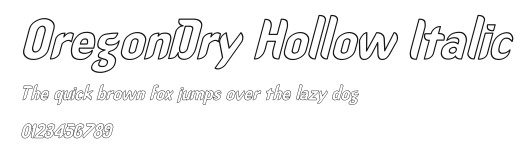
OregonDry Hollow Italic Preview
• Font Name: OregonDry Hollow Italic
• Full Font Name: OregonDry Hollow Italic
• PostScript Name: OregonDryHollow-Italic
About OregonDry Hollow Italic.ttf
OregonDry Hollow Italic.ttf is a modern, elegant sans-serif font designed for ultimate readability and visual harmony. Perfect for branding, headlines, web design, and print materials.